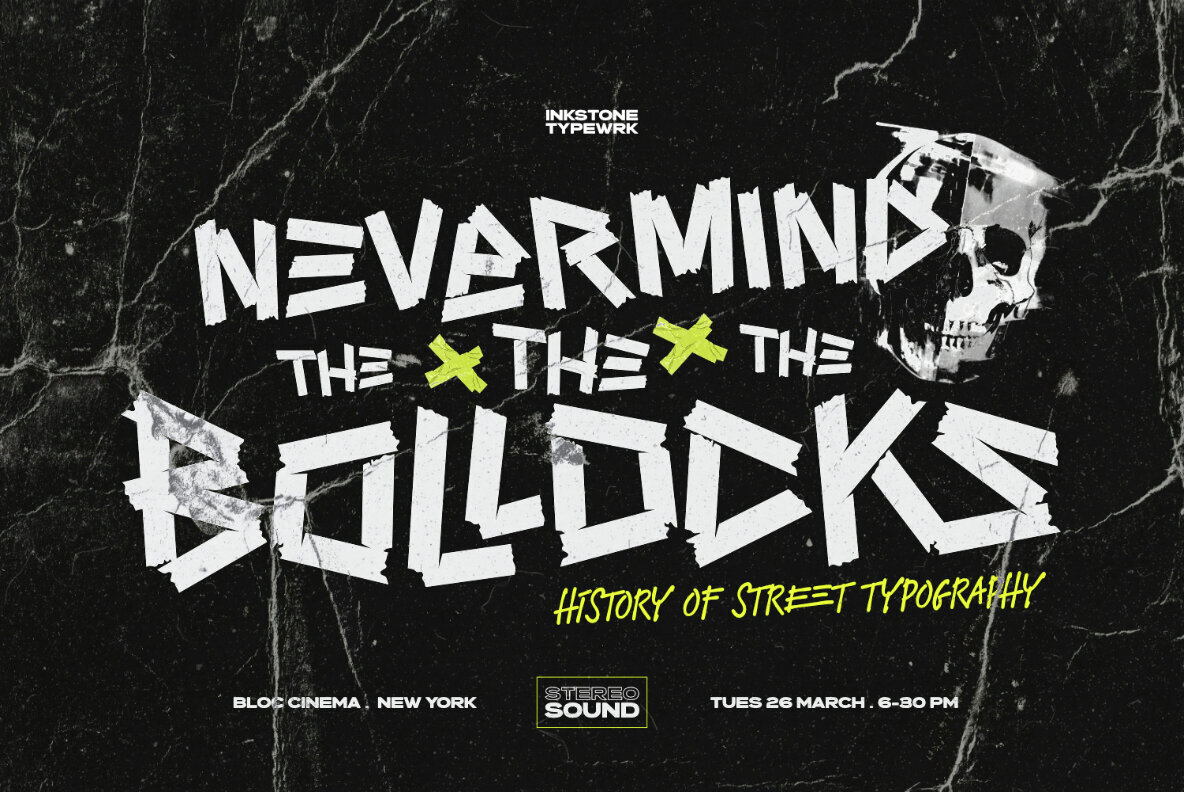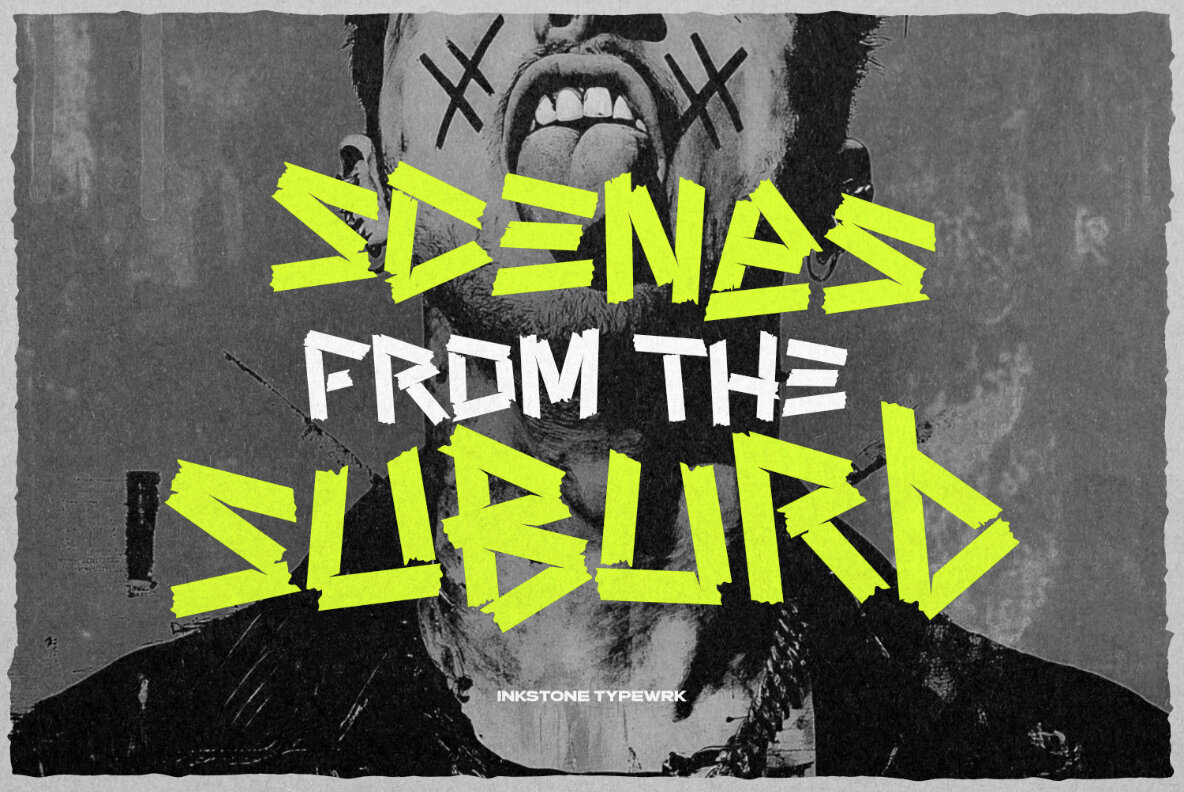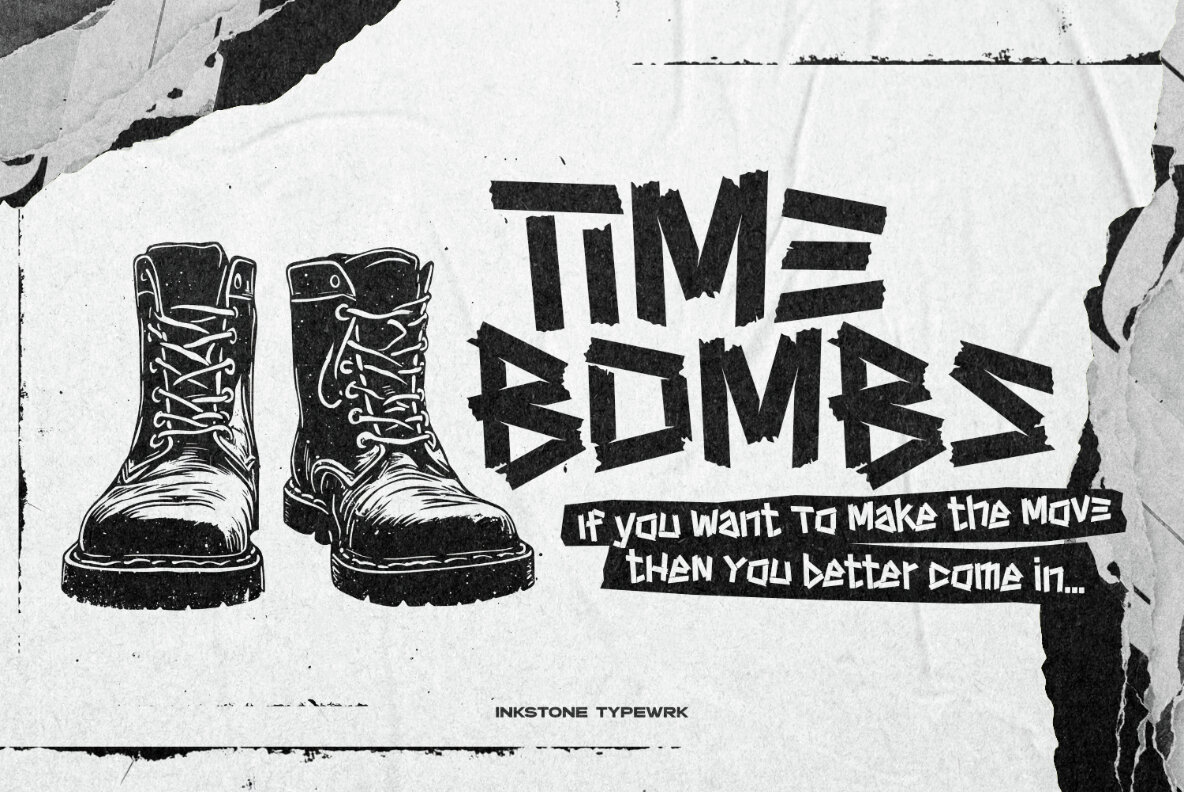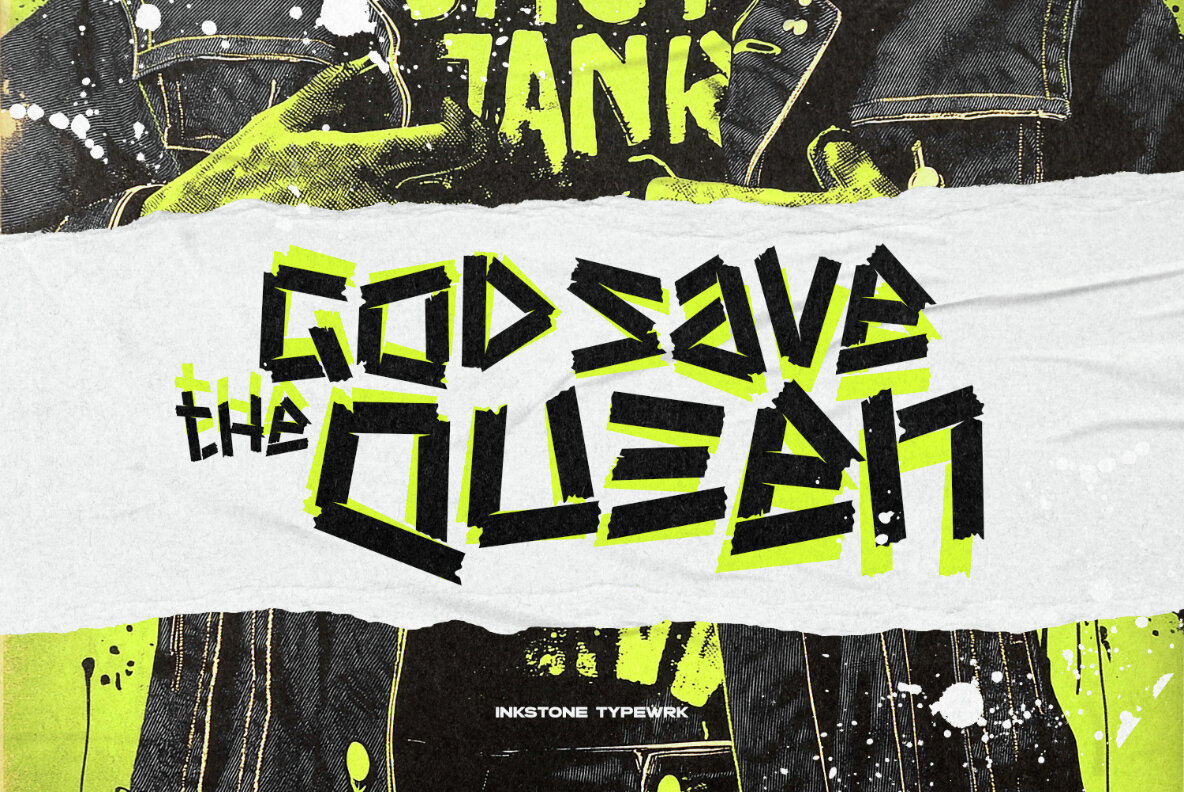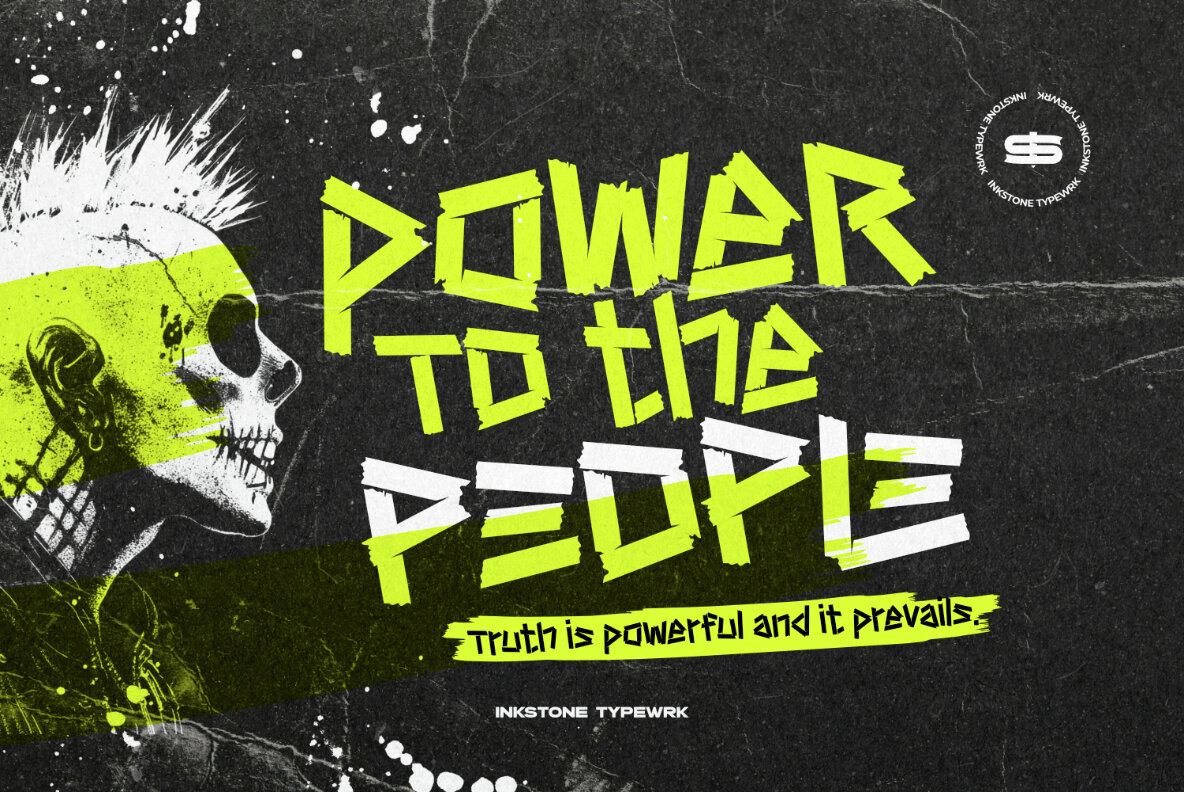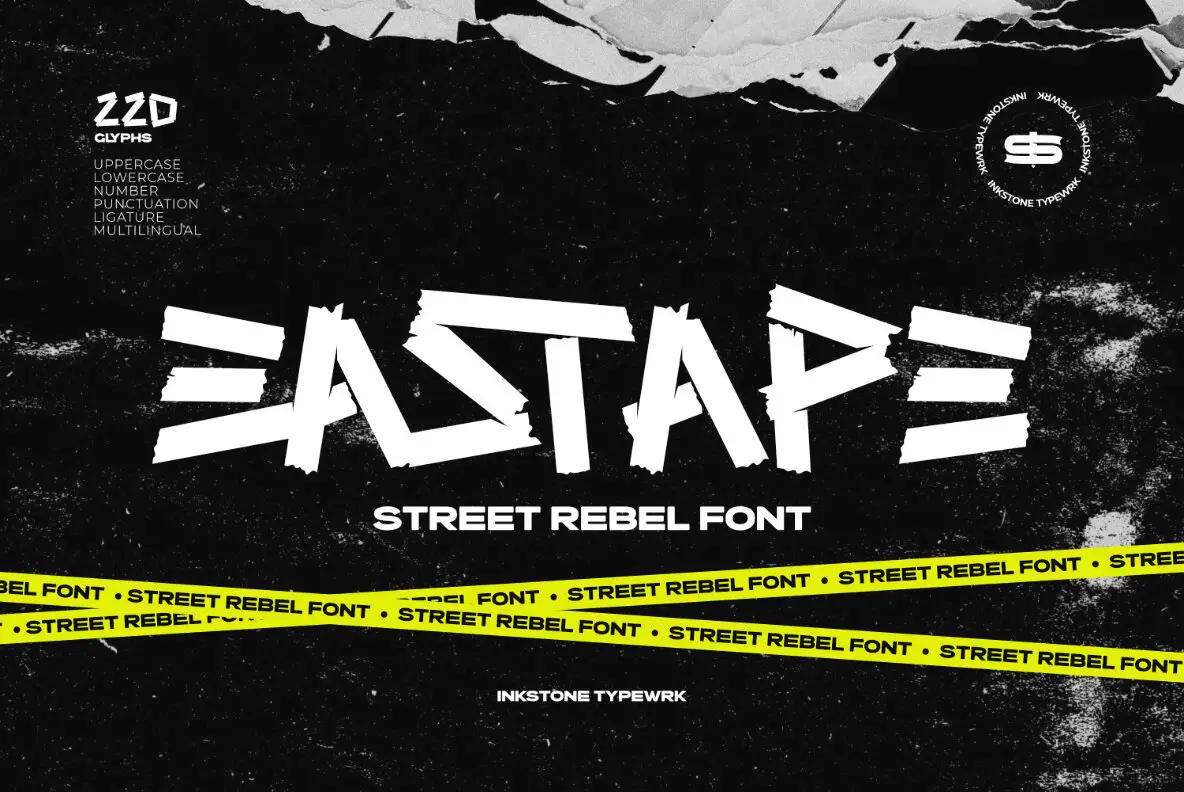
Eastape Font
Eastape
Breathe life into your designs with Eastape, a font inspired by the prominent letters fashioned from tape, reminiscent of artistry emerging in urban protests or expressions of defiance. It caters to the bold, the rebellious, and the style-conscious, infusing your projects with a dynamic energy reflective of street culture and the ever-evolving world of urban fashion. Eastape delivers an edgy flair, making your designs stand out with an inherent spirit of challenge and rebellion. Its aesthetic is tailor-made for a youth-centric, street-aware audience, channeling the pulse of the streets, the determination of the hustle, and the ongoing quest for personal expression.Eastape: Street Rebel Typeface